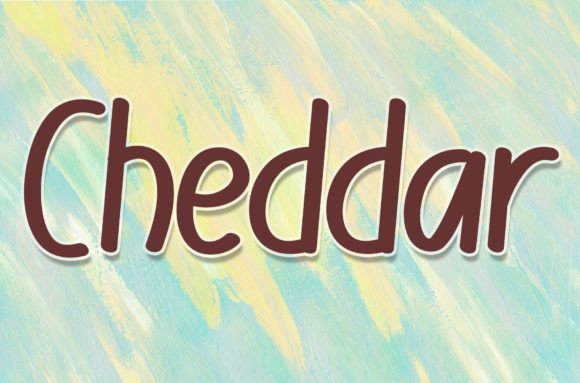
Introducing Cheddar Font: The Perfect Handwritten Font for Fun and Creative Projects
Are you looking for a font that can add a touch of friendliness and playfulness to your designs? Look no further than Cheddar Font! Designed in a cute and friendly handwritten font style, Cheddar is perfect for a wide range of fun and creative projects. Whether you’re working on a DIY project, creating decorations for a special occasion, or simply looking for a font to add some personality to your designs, Cheddar is the perfect choice.
What Makes Cheddar Font So Special?
Cheddar Font is designed to be highly versatile and can be used for a wide range of projects. Its cute and friendly handwritten style makes it perfect for:
- Easter and spring-themed designs
- Back to school projects and decorations
- Wedding invitations and decorations
- Party decorations and invitations
- Fall and Halloween-themed designs
- Christmas and holiday decorations
- Blogs and social media posts
- Clothing and kids-related designs
Wherever you need to add a friendly and playful touch, Cheddar Font is the perfect choice.
Why Choose Cheddar Font?
There are many reasons why Cheddar Font stands out from other fonts. Here are just a few:
- Cute and Friendly Design: Cheddar Font is designed to be highly legible and easy to read, making it perfect for use in a wide range of projects.
- Easily Customizable: Cheddar Font can be easily customized to fit your specific needs, making it perfect for use in a wide range of projects.
How to Use Cheddar Font in Your Projects
Using Cheddar Font in your projects is easy! Here are a few tips to get you started:
- Pair it with Other Fonts: Cheddar Font pairs well with a wide range of other fonts, making it easy to create unique and interesting combinations.
- Experiment with Different Sizes and Colors: Cheddar Font looks great in a wide range of sizes and colors, so don’t be afraid to experiment and find the perfect look for your project.
- Use it in Digital and Print Projects: Cheddar Font is perfect for use in both digital and print projects, making it a great addition to any font library.
If you’re looking for a font that can add a touch of friendliness and playfulness to your designs, Cheddar Font is the perfect choice. With its cute and friendly handwritten style, Cheddar Font is perfect for a wide range of fun and creative projects. Whether you’re working on a DIY project, creating decorations for a special occasion, or simply looking for a font to add some personality to your designs, Cheddar Font is a great addition to any font library. So why wait? Add Cheddar Font to your font library today and start bringing your DIY projects to life!
- Cute and friendly handwritten font style
- Perfect for fun and creative projects
- Highly versatile and customizable
- Pairs well with a wide range of other fonts
- Easy to use in digital and print projects